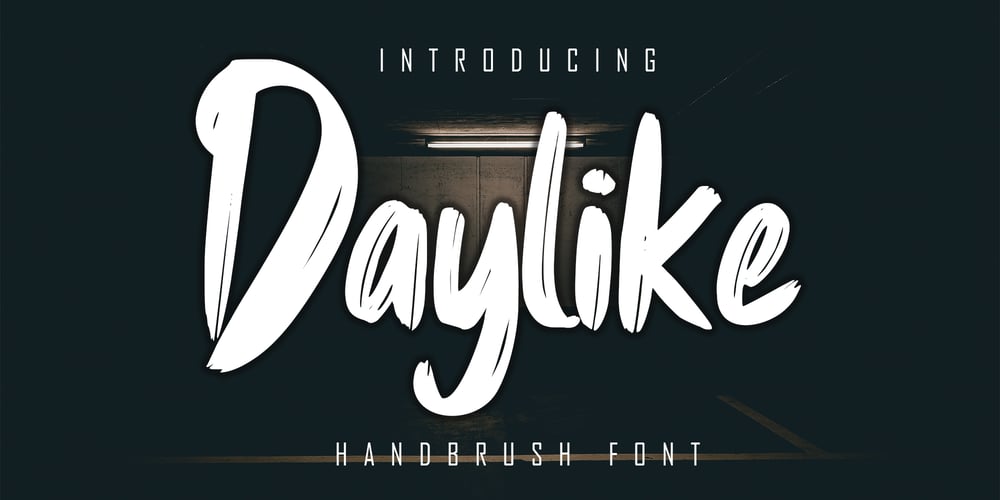
Daylike Font Family was designed by Irfan Mahmudin and published by Skiiller Studio. Daylike contains 1 styles and family package options. Daylike Handbrush is a dry handbrushed font, designed to combine perfectly and allows you to create stunning handwriting quickly and easily. Ideal for logos, handwritten quotes, product packaging, headers, posters, merchandise, social media & greeting cards.